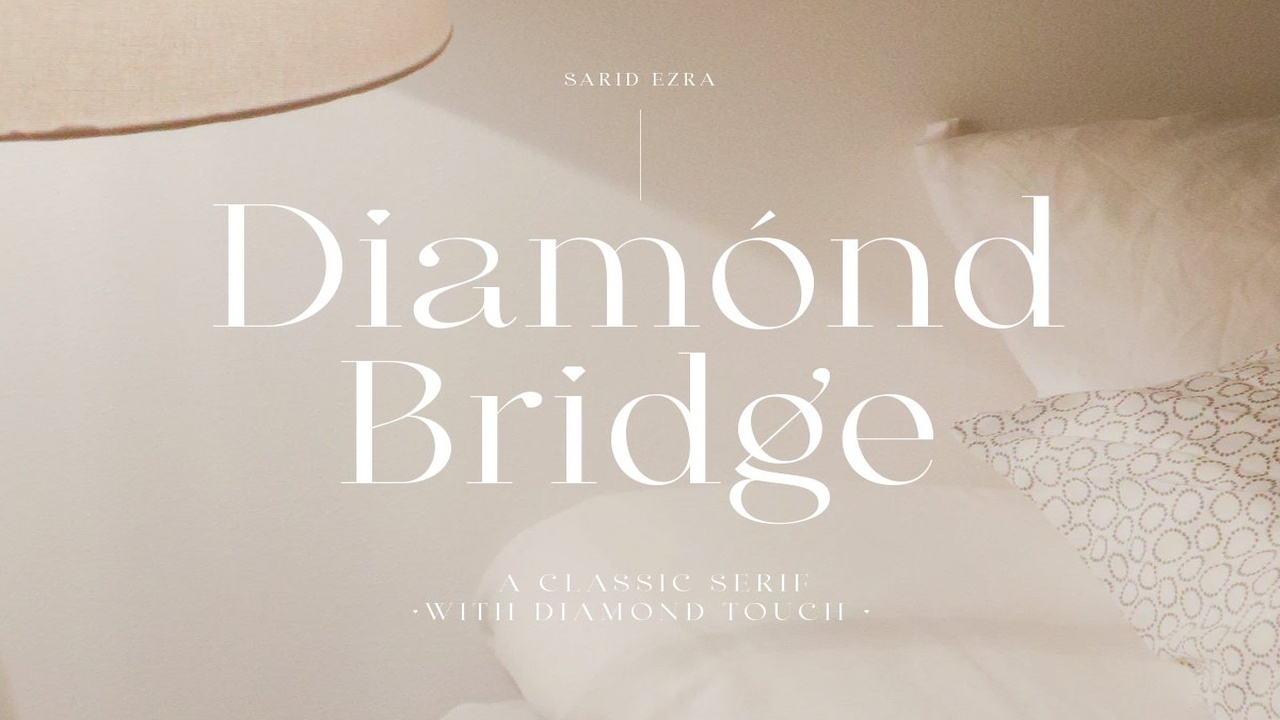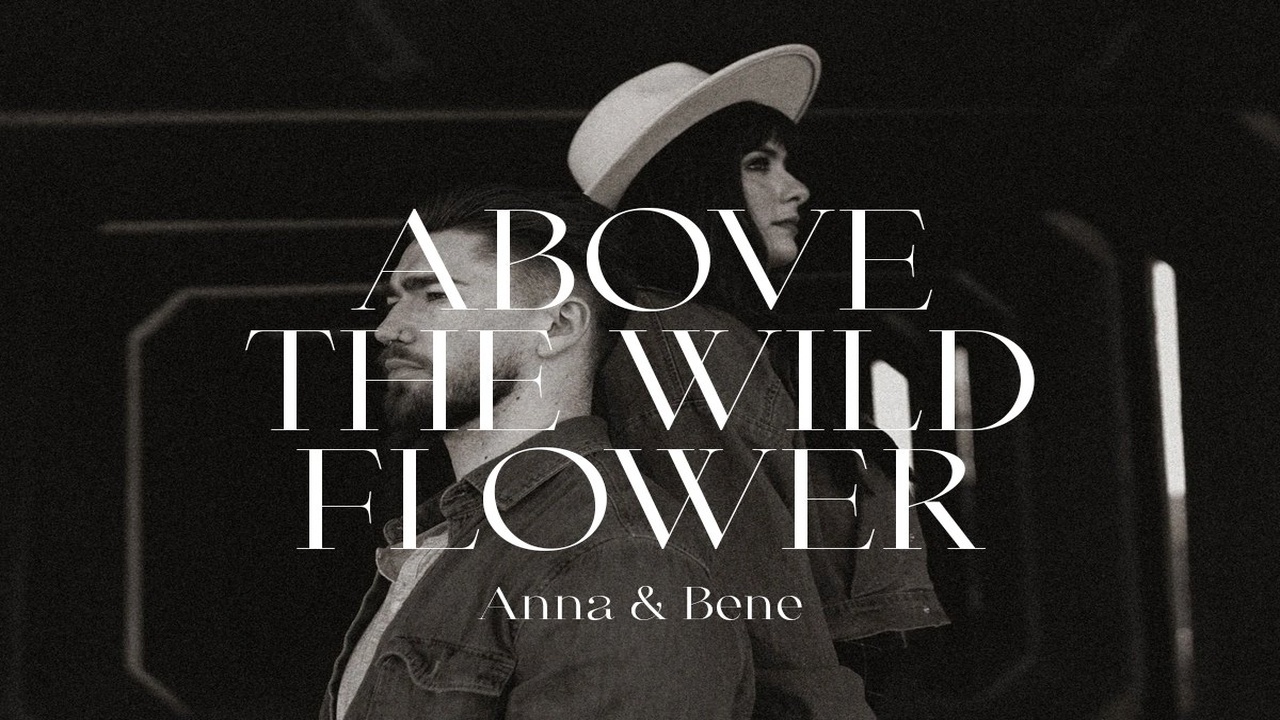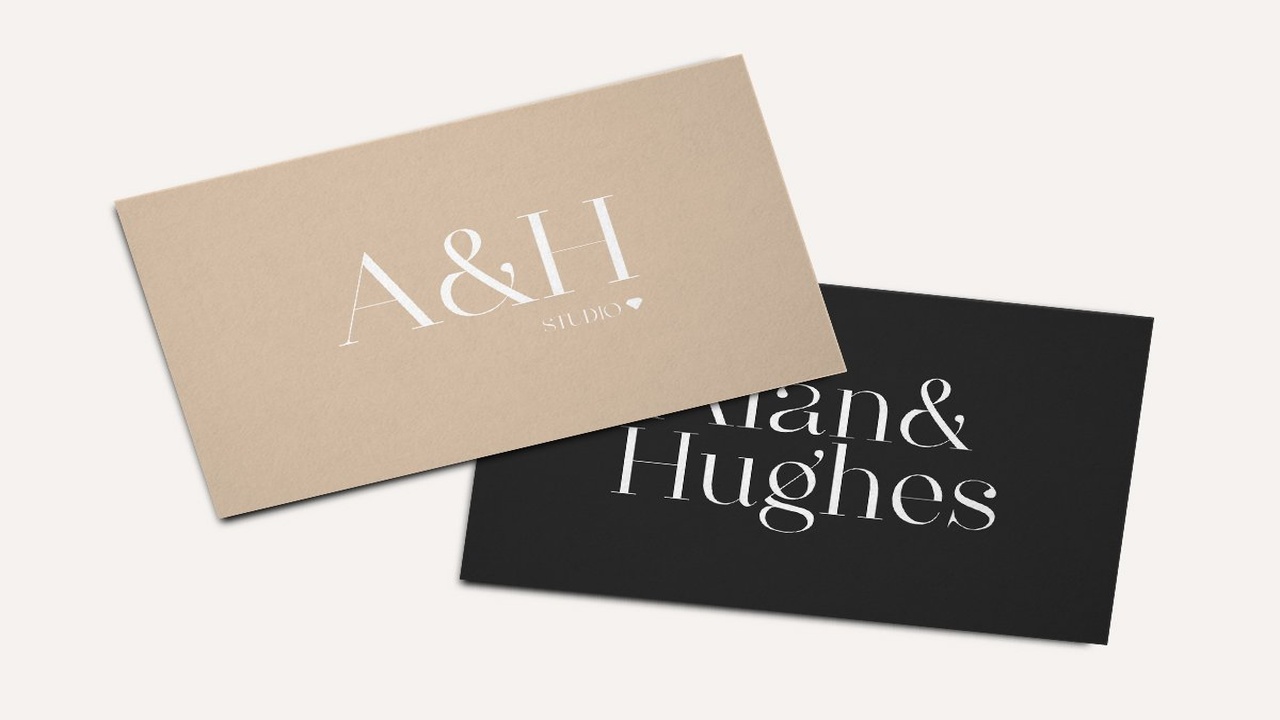
About the Diamond Bridge Classy Serif Font
Introducing, Diamond Bridge – a classy serif with diamond touch!Diamond Bridge is an elegant and classy serif with a beautiful details that will make your presentation, logo or your wedding invitations more stunning and classy! You can use this font for several purposes such as a wedding invitations or even your own branding! This fonts support Multi Language and already PUA Encoded!FeaturesUppercase & LowercaseNumber & SymbolMulti languagePUA EncodedDon’t hesitate to send me an email at saridezra@gmail